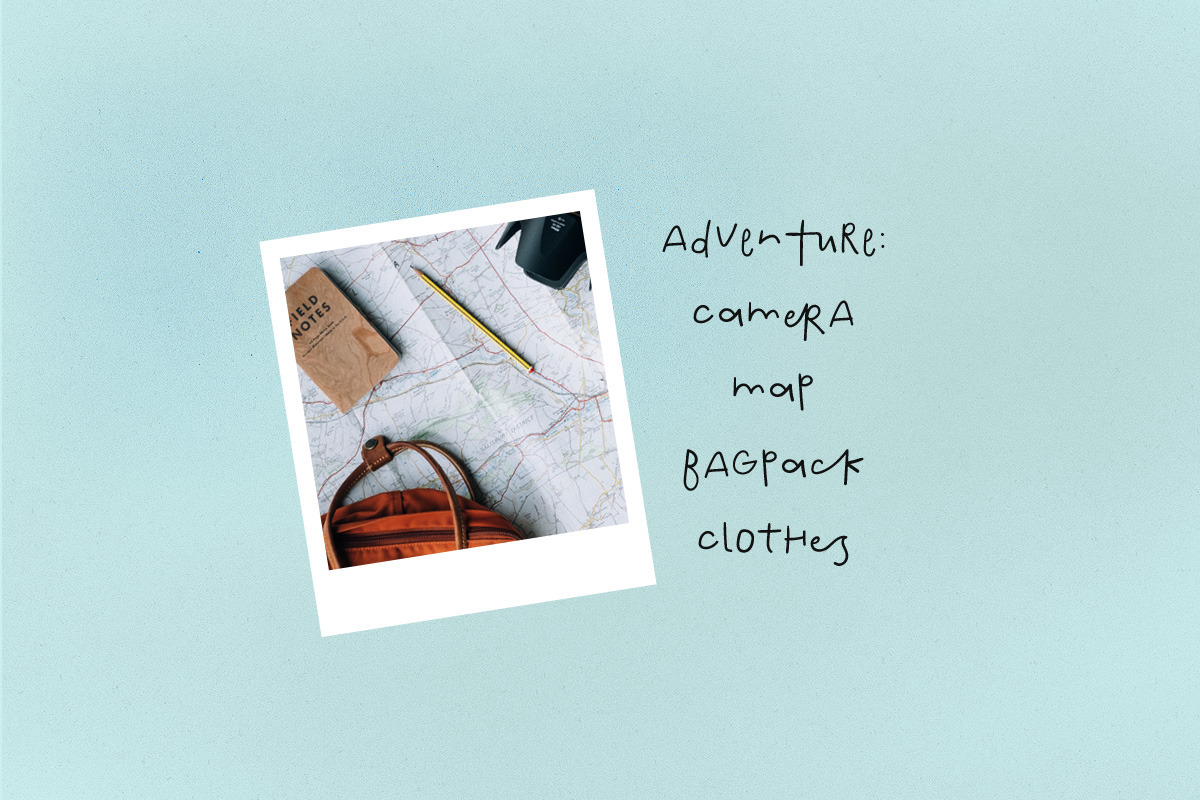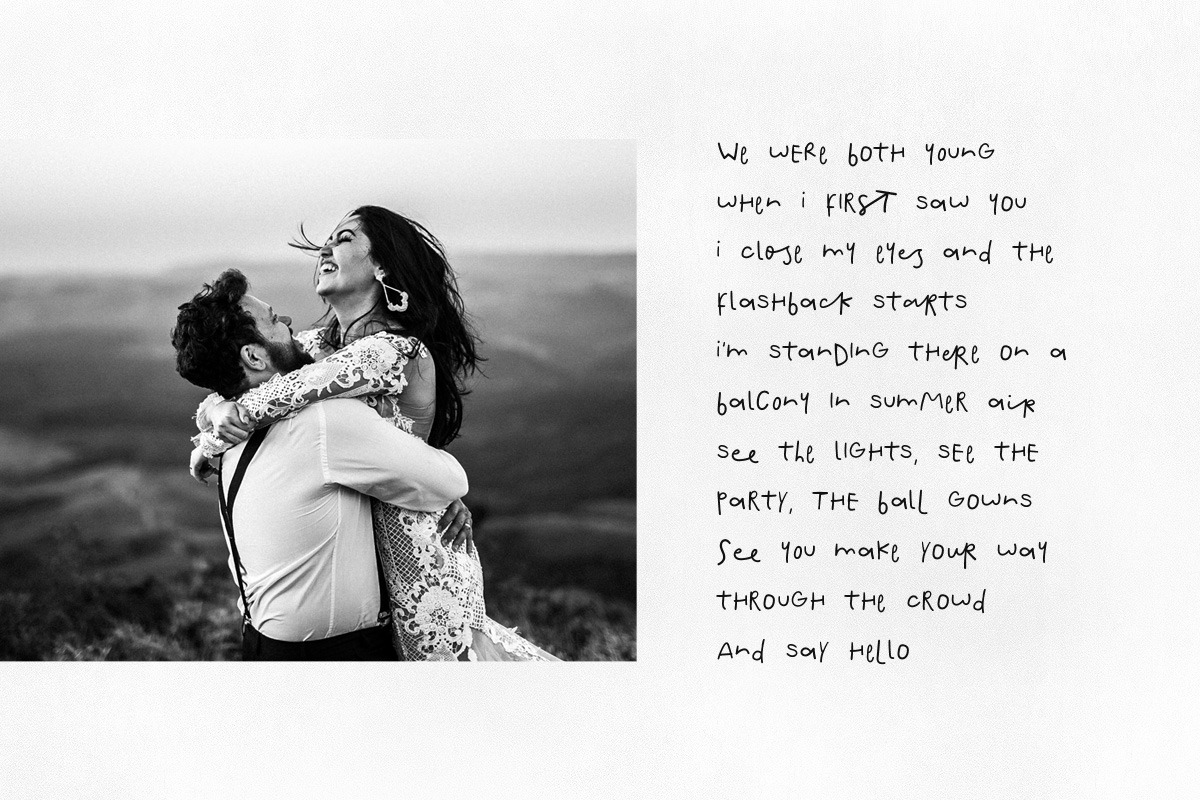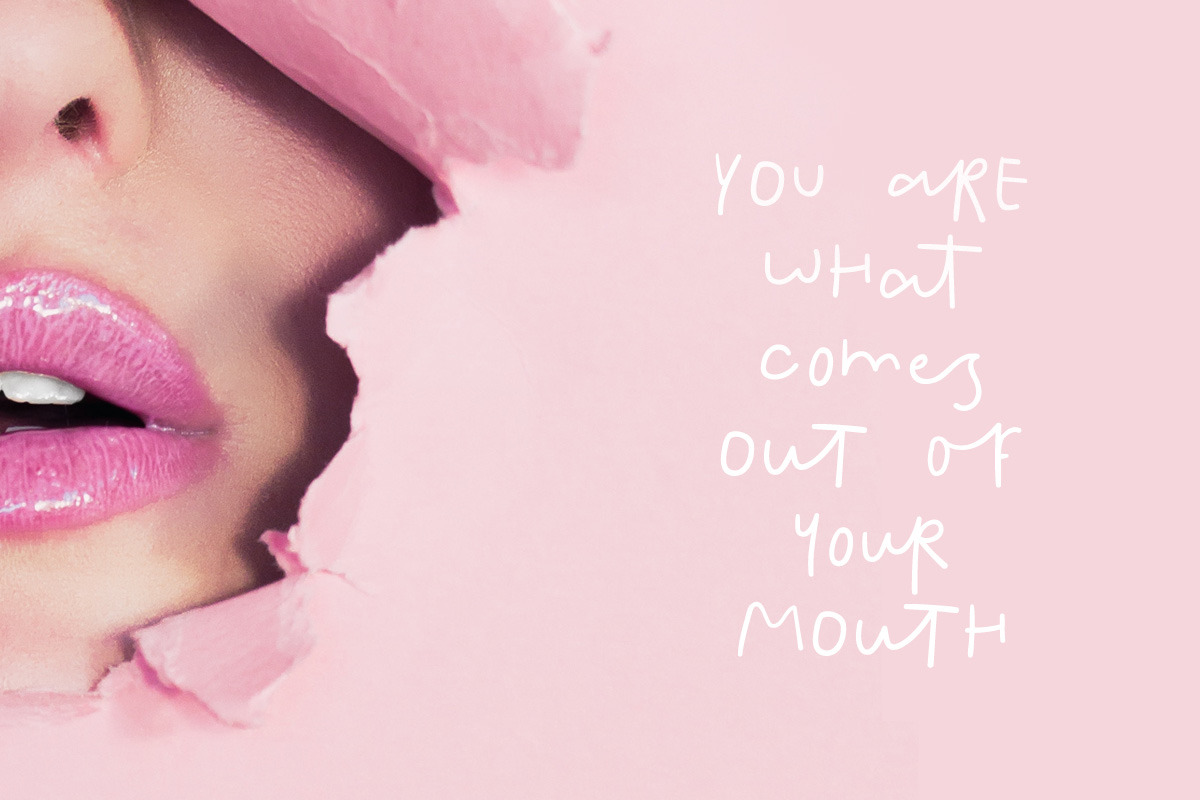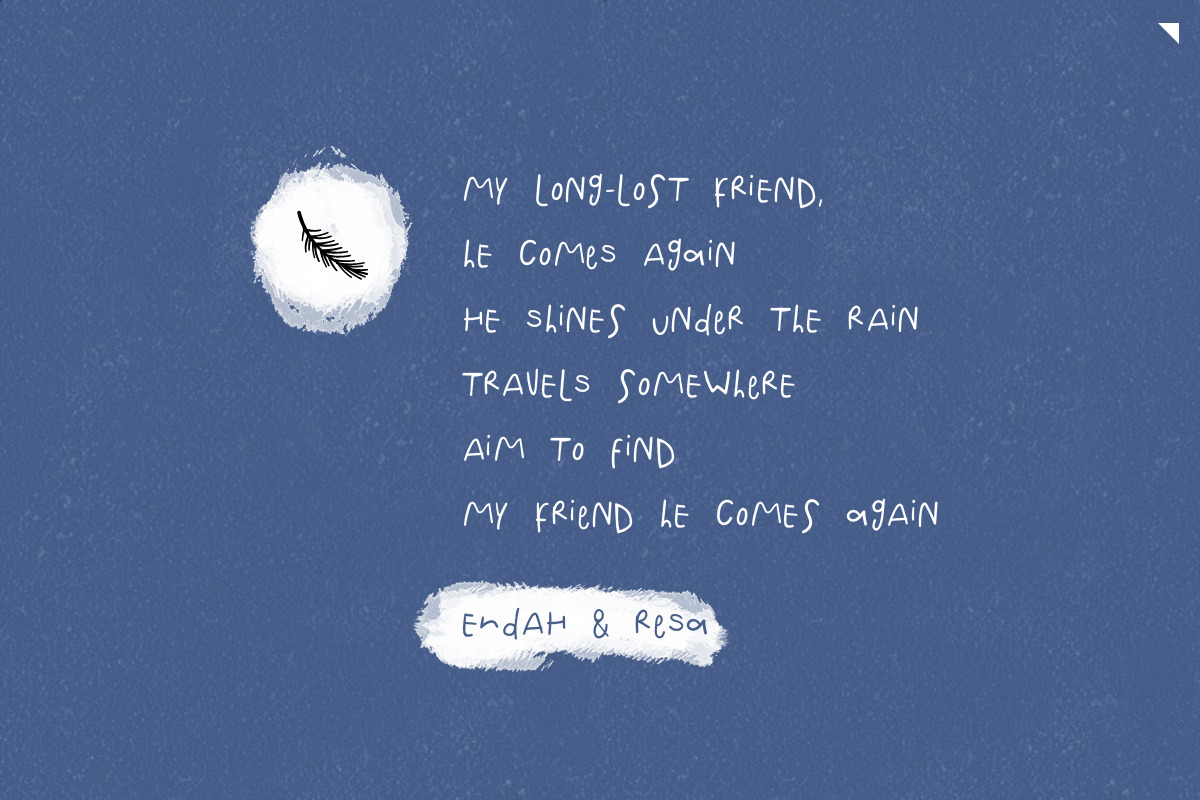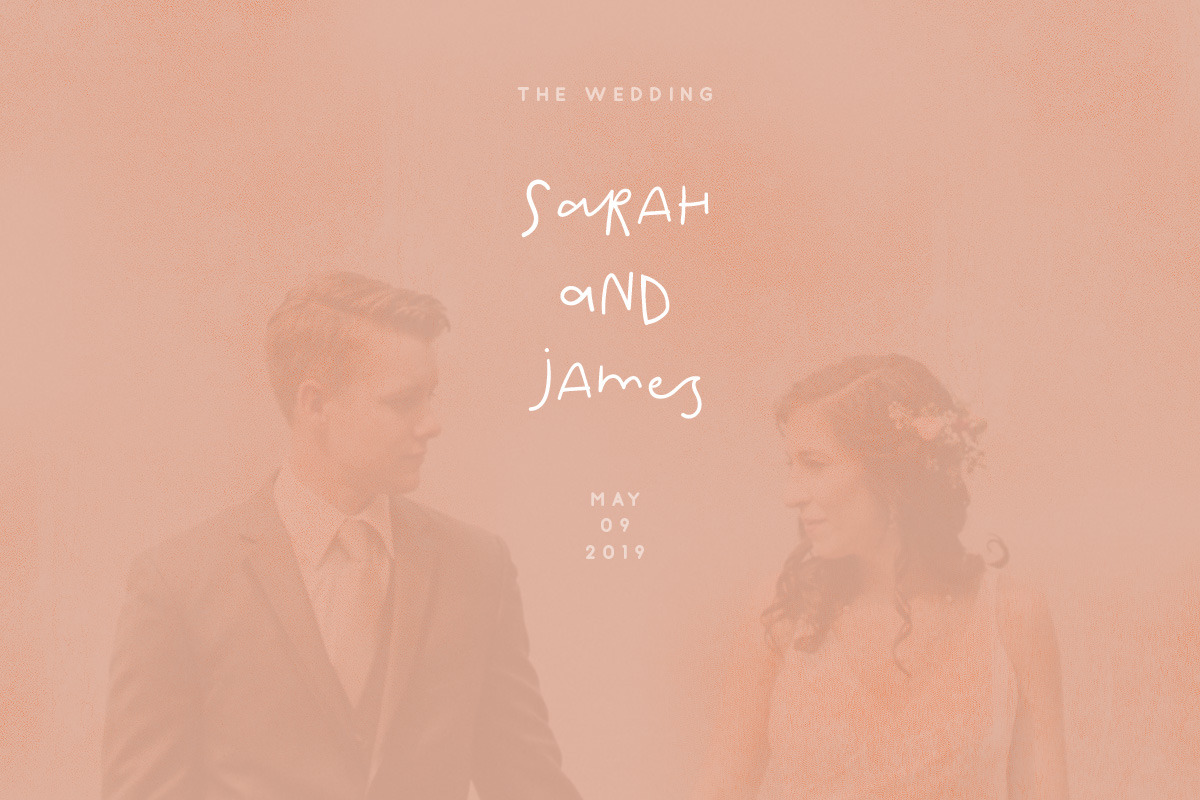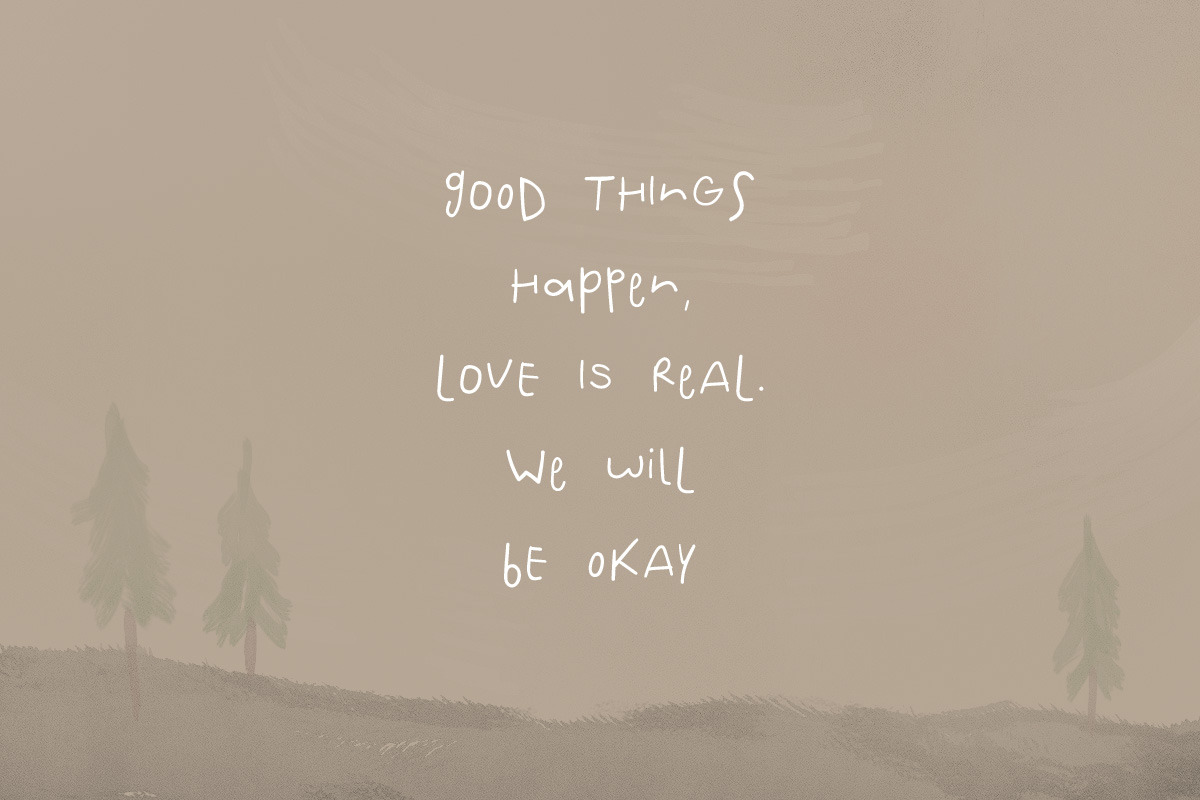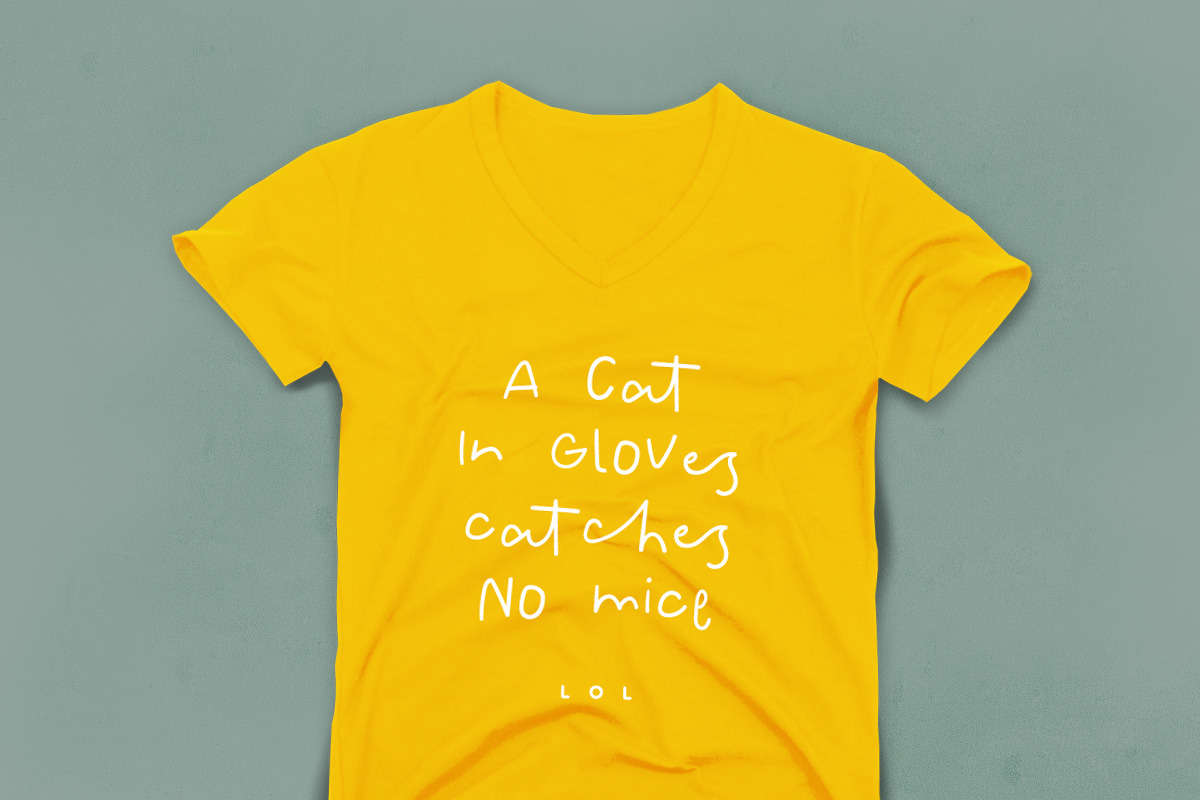
Moret Font
Moret is modern fun font, every single letters have been carefully crafted to make your text looks beautiful. With modern fun style this font will perfect for many different project ex: quotes, blog header, poster, wedding, branding, logo, fashion, apparel, letter, invitation, stationery, etc.
Why Moret Font is worth a look
Moret Font by vuuuds fits naturally into Branding, posters, packaging, typography.